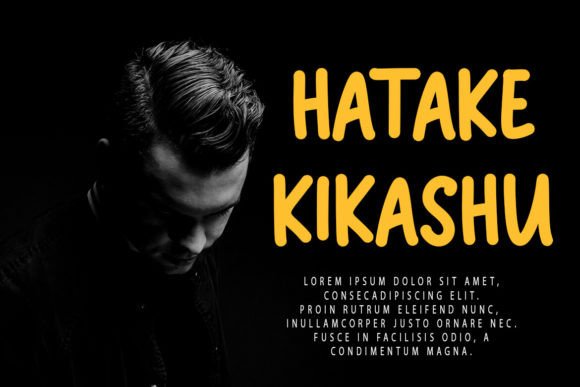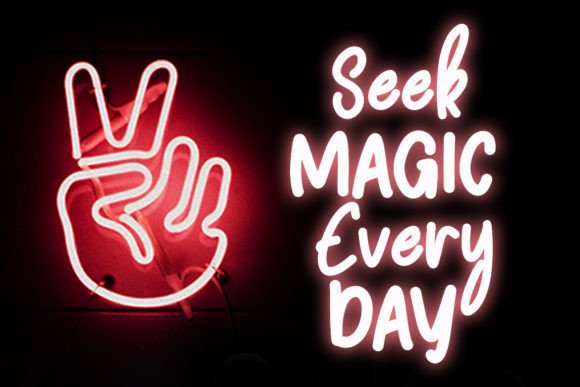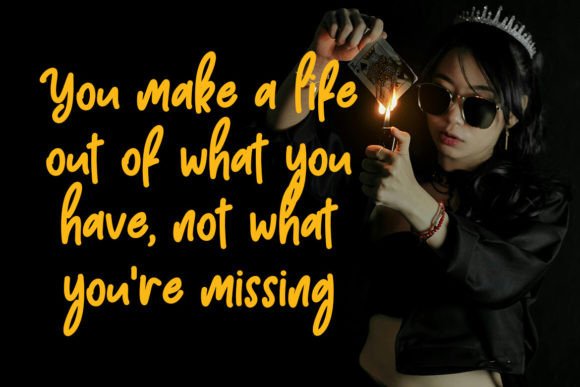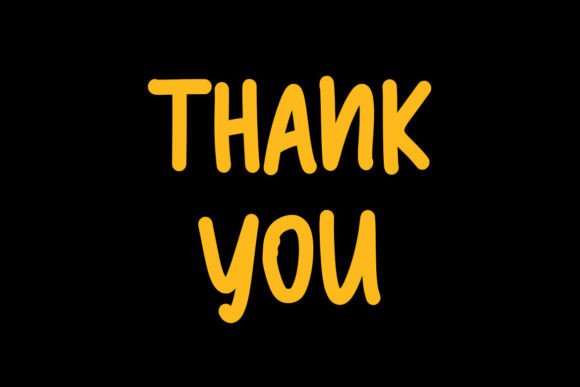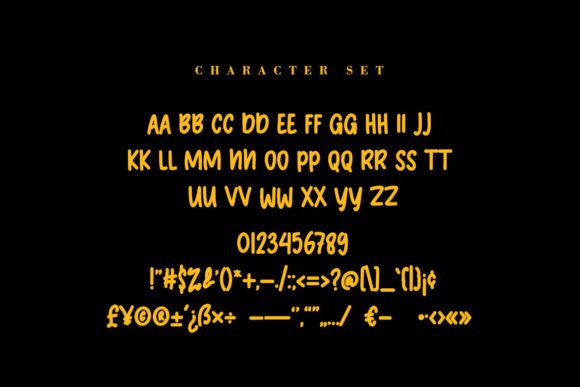
Bishake Font: Elevate Your Designs with Elegance and Personality
Are you tired of using the same old fonts in your designs? Look no further than Bishake Font, a unique and elegant handwritten font that is sure to add a touch of personality to any project. In this article, we’ll dive into the features and benefits of Bishake Font, and explore how it can elevate your designs to the next level.
What is Bishake Font?
Bishake Font is a beautiful, handwritten font that is perfect for designers and crafters looking to add a personal touch to their work. This font is not just any ordinary font – it’s a carefully crafted, one-of-a-kind design that is sure to make your projects stand out. With its elegant and refined appearance, Bishake Font is ideal for a wide range of designs, from wedding invitations and greeting cards to branding and advertising materials.
Key Features of Bishake Font
So, what sets Bishake Font apart from other fonts on the market? Here are just a few of its key features:
- Unique and Elegant Design: Bishake Font boasts a beautiful, handwritten design that is both elegant and refined. Its unique appearance is sure to add a touch of personality to any project.
- PUA Encoded: Bishake Font is PUA (Private Use Area) encoded, which means that you can access all of the glyphs and swashes with ease. This makes it easy to customize your designs and add your own personal touch.
- Versatile: Bishake Font is versatile and can be used on a wide range of designs, from digital projects to print materials.
Benefits of Using Bishake Font
So, why should you choose Bishake Font for your next project? Here are just a few of the benefits of using this amazing font:
- Adds a Personal Touch: Bishake Font is the perfect way to add a personal touch to your designs. Its unique and elegant appearance is sure to make your projects stand out.
- Time-Saving: With Bishake Font, you can create beautiful designs in no time. Its PUA encoding makes it easy to access all of the glyphs and swashes, saving you time and effort.
Who Can Benefit from Bishake Font?
Bishake Font is perfect for a wide range of designers and crafters, including:
- Graphic Designers: Bishake Font is a must-have for graphic designers looking to add a personal touch to their designs.
- Stationery Designers: If you design stationery, such as greeting cards and invitations, Bishake Font is the perfect choice.
- Crafters: Bishake Font is also perfect for crafters who want to add a personal touch to their projects, such as scrapbooking and DIY crafts.
Tips for Using Bishake Font
Here are a few tips for using Bishake Font to get the most out of this amazing font:
- Experiment with Different Sizes: Bishake Font looks great in a variety of sizes, so don’t be afraid to experiment and find the perfect size for your project.
- Pair with Other Fonts: Bishake Font pairs well with other fonts, so try pairing it with a bold font for a striking contrast.
- Use the Swashes: Bishake Font’s PUA encoding makes it easy to access the swashes, so don’t be afraid to get creative and add your own personal touch.
In conclusion, Bishake Font is a unique and elegant handwritten font that is perfect for designers and crafters looking to add a personal touch to their work. With its PUA encoding and versatile design, Bishake Font is sure to become a go-to font in your collection. Whether you’re a graphic designer, stationery designer, or crafter, Bishake Font is a must-have font that will elevate your designs to the next level.